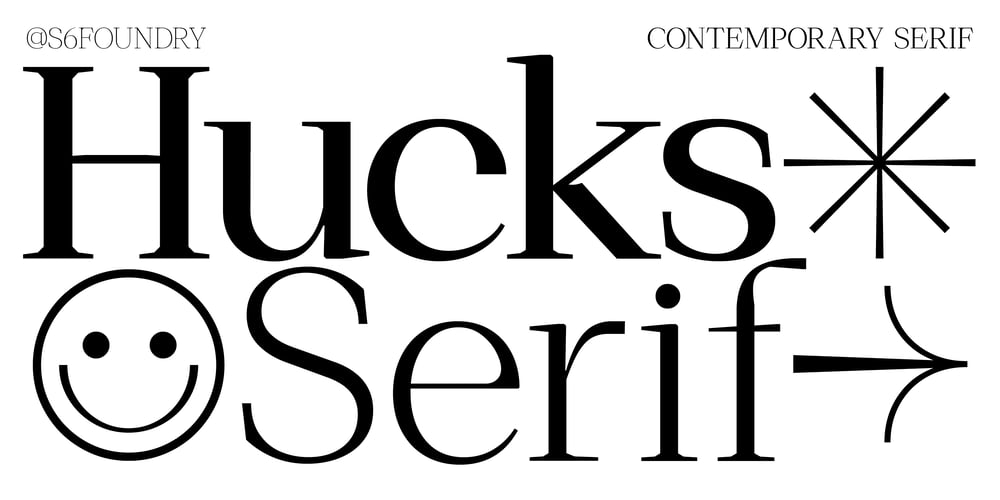
Hucks Serif Font Family was designed by Paul Henry Robb and published by S6 Foundry. Hucks Serif contains 10 styles and family package options. Hucks Serif is a contemporary serif typeface that seamlessly incorporates large open counters and gracefully curved and rounded forms, resulting in a glyph set that exudes a modern and elegant aesthetic. The pronounced contrast between thick and thin strokes imparts Hucks Serif with a harmonious and stylish appearance. Meticulously crafted to infuse letterforms with an inherent elegance, this font lends a distinctive style and atmosphere to every project it graces.Its versatile nature makes Hucks Serif particularly well-suited for many applications, including but not limited to editorial, headlines, large-format prints, brand identities, social media graphics, advertising materials, editorial designs, posters, magazines, logos, headings, and more. The adaptability of Hucks ensures it can effortlessly enhance the visual appeal and impact of a diverse range of creative projects.